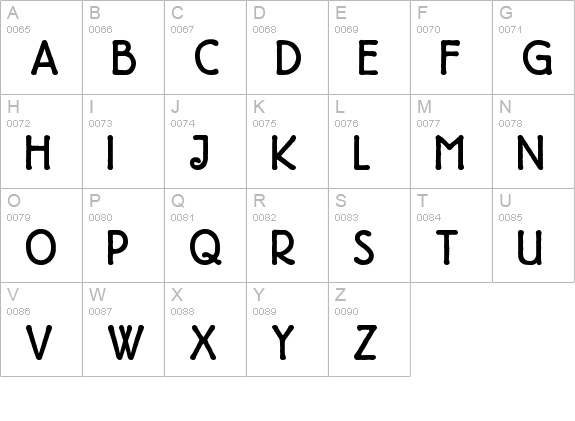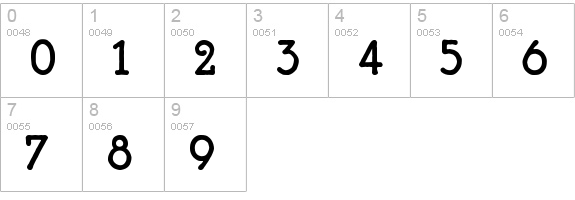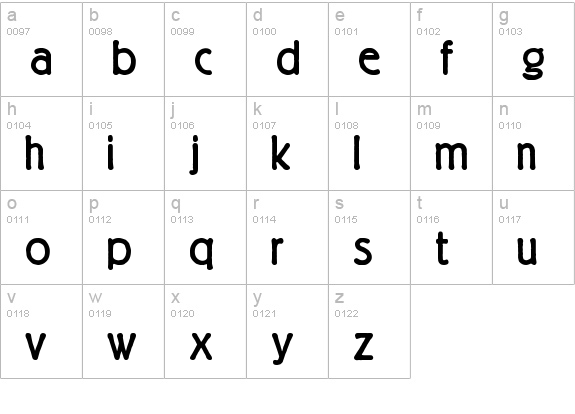
Cuarto Font Details
Cuarto font is a modern and elegant typeface that combines sleek lines with a touch of sophistication. Its clean and minimalist design makes it perfect for a wide range of projects, from branding to editorial design. The versatility of Cuarto font allows it to be used in various contexts, whether for headlines, body text, or logo design. This versatile font is available for free download at FontsMarket.com, making it accessible to designers and creatives looking to add a touch of style to their projects without breaking the bank. With its timeless appeal and effortless readability, Cuarto font is sure to become a staple in your font library.